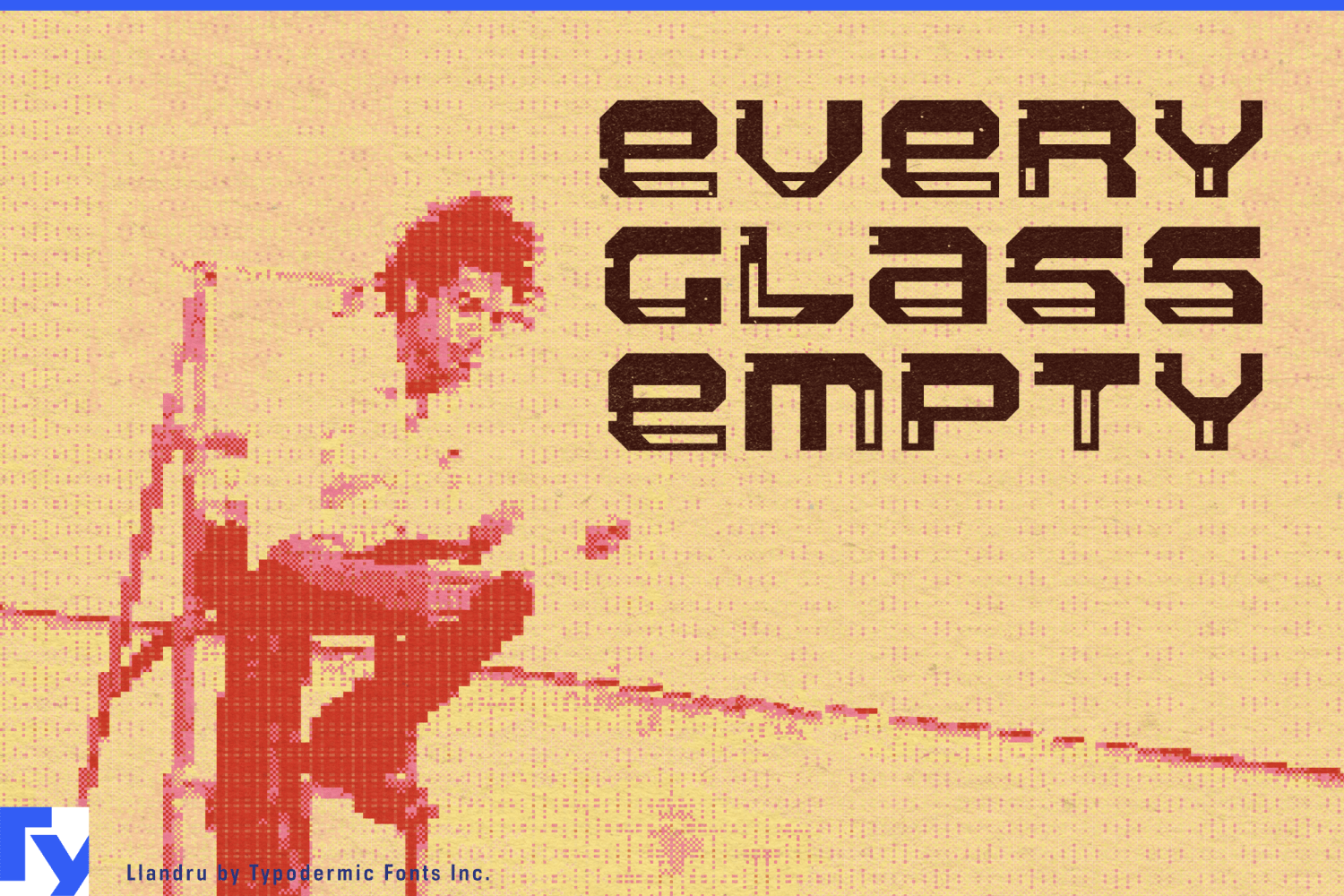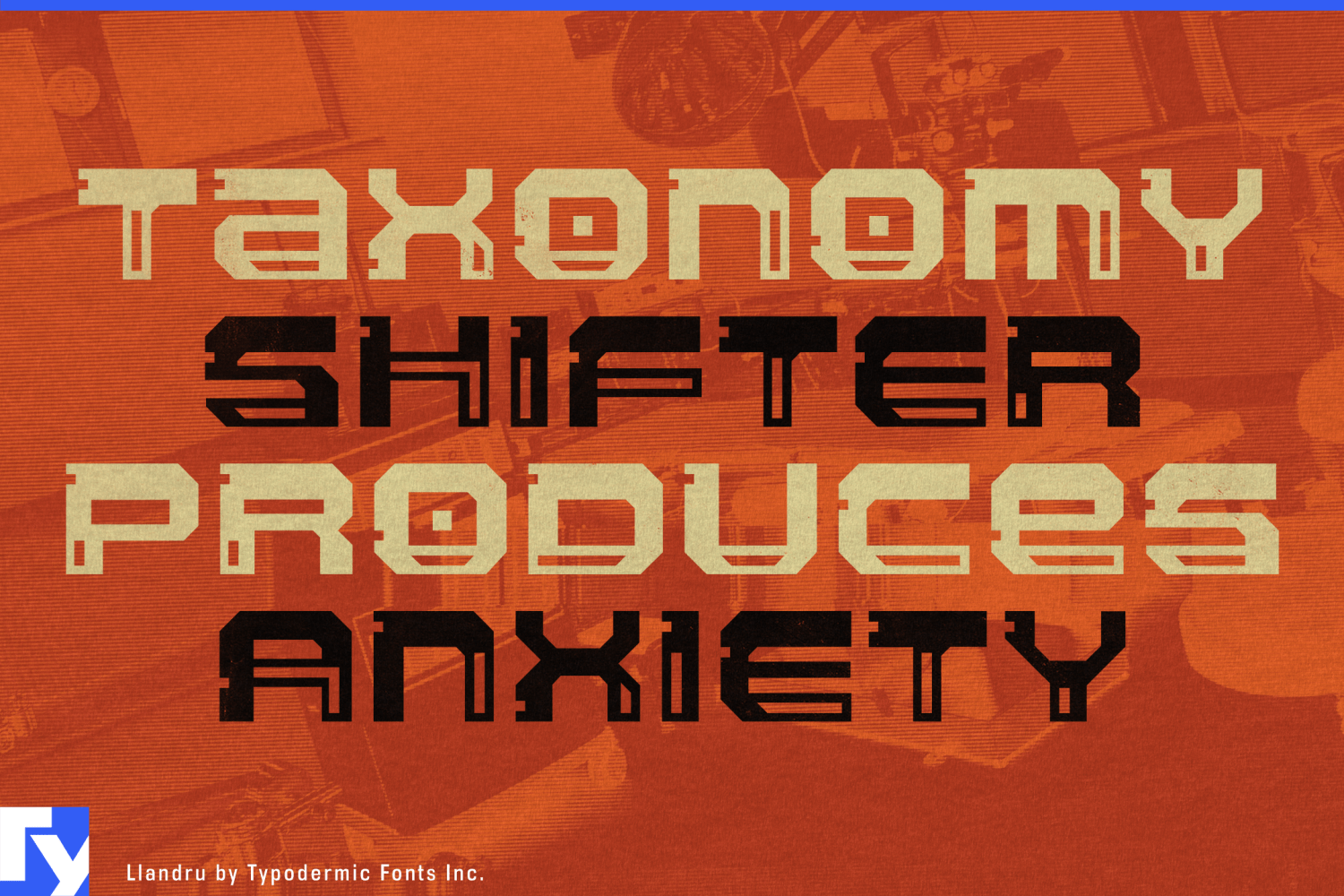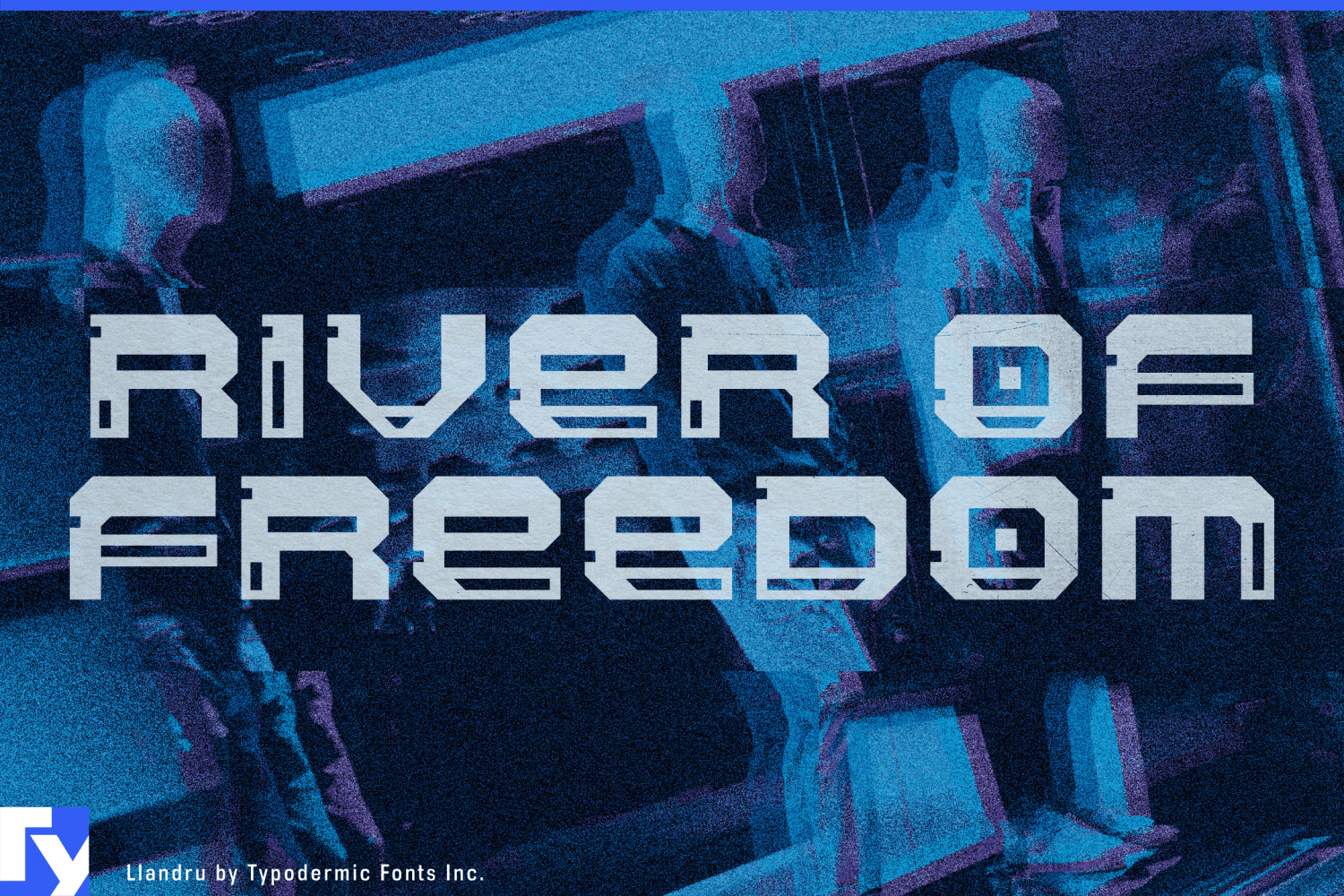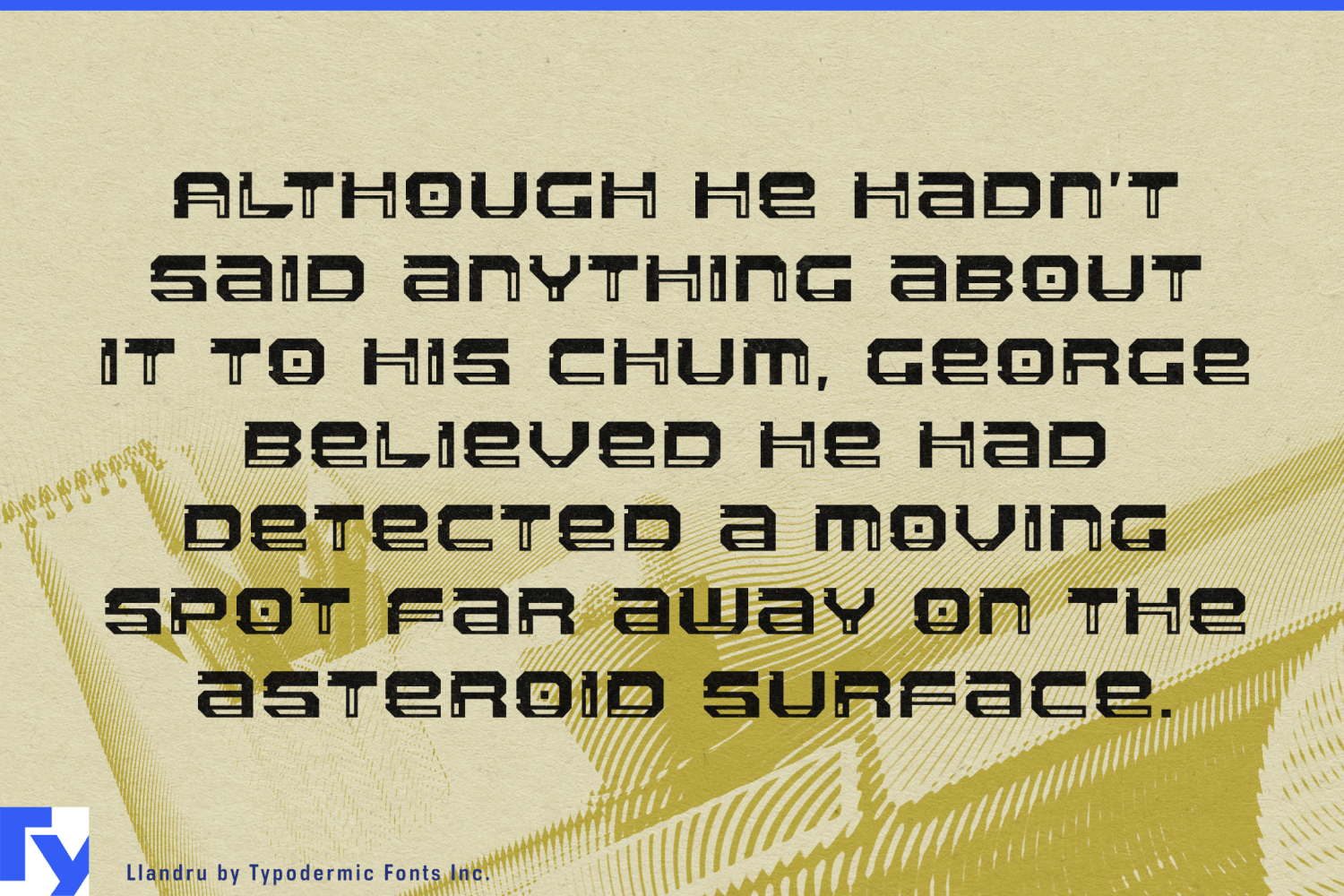
About Llandru
Step into a world where technology has gone awry with Llandru, a display typeface that embodies the unnerving convergence of mechanical precision and sci-fi nightmares. This bold, bizarre creation doesn’t just catch the eye—it holds it hostage,…